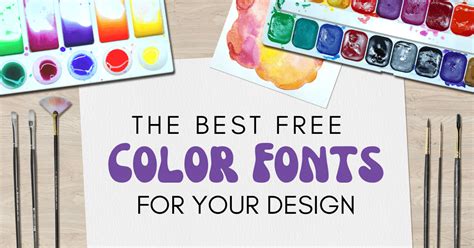
Experience Endless Creativity with Free Color Fonts Apk - Add a Splash of Vibrant Colors to Your Typography!
Are you tired of using the same old boring fonts in your designs? Do you want to add a splash of color to your typography and make your designs stand out? Look no further than the Free Color Fonts Apk, where you can experience endless creativity and enhance your designs with vibrant colors!
Did you know that color fonts are the latest trend in design? They allow designers to add a whole new dimension to their typography and bring their designs to life. With the Free Color Fonts Apk, you can access a wide range of free color fonts and add colorful text to your projects, whether it's for graphic design, social media, or personal projects.
Do you want to create eye-catching designs that capture your audience's attention? The Free Color Fonts Apk offers a simple and user-friendly platform that allows you to browse, select, and use color fonts with ease. With just a few clicks, you can choose from a variety of fonts that match your brand or personal style and make your designs pop.
Did you know that using vibrant colors in your typography can increase engagement and grab your audience's attention? Adding colorful text to your designs can make them more appealing and memorable. With the Free Color Fonts Apk, you can transform your ordinary designs into extraordinary ones and leave a lasting impression on your viewers.
Typography is an essential element of any design project. It has the power to enhance the message you are trying to convey and add a touch of creativity to your work. With the emergence of color fonts, designers can now expand their creativity beyond the limits of traditional typography. In this comparison blog article, we will explore the advantages of using Free Color Fonts Apk, a tool that enables users to experience endless creativity by adding a splash of vibrant colors to their typography.
What are Color Fonts?
Color fonts, also known as chromatic or multi-colored fonts, are a relatively new technology that allows designers to incorporate colorful elements into their typography. These fonts contain multiple layers of colors, making it possible to create vibrant and highly detailed typography that stands out among traditional black and white fonts.
Traditional fonts vs Color Fonts
| Traditional Fonts | Color Fonts | |
|---|---|---|
| Colors | One-color (usually black) | Multiple colors |
| Detail | Typically less detailed | Highly detailed |
| Creativity | Limited by one color | Endless possibilities with multiple colors |
The Advantages of Using Free Color Fonts Apk
1. Endless Creativity
With Free Color Fonts Apk, users have access to a vast library of color fonts, offering endless creativity possibilities. From fun and playful to elegant and sophisticated fonts, there is something for every type of project. The ability to customize each layer of color in a font allows users to achieve a level of detail and depth not found in traditional fonts.
2. User-Friendly Interface
Free Color Fonts Apk has a user-friendly interface, making it easy for designers of all levels to use. The straightforward design of the tool allows users to select and preview fonts quickly. Customizing the fonts is also a breeze thanks to the tool's intuitive editing features.
3. Cost-Efficient
Most Color Font options require users to purchase each font separately, which can become costly quickly. Free Color Fonts Apk eliminates this problem by offering its users access to a wide variety of color fonts without the need to buy them individually. This makes Free Color Fonts Apk a cost-efficient option for designers looking to explore color fonts.
The Disadvantages of Using Free Color Fonts Apk
1. Limited Customization Options
While Free Color Fonts Apk offers customization options, they are somewhat limited compared to other tools. Some designers may find that the tool does not allow them to achieve the level of customization they desire, leading them to use other design software instead.
2. Compatibility Issues
As color fonts are a relatively new technology, some browsers and applications may not be compatible with them, limiting their use. Before using color fonts, designers should check its compatibility with the application or software they intend to use it with.
Overall, Free Color Fonts Apk is an excellent tool for designers looking to branch out and experiment with color fonts. Its vast library of fonts and user-friendly interface make it accessible for designers of all levels. While it may not offer the same level of customization as other design tools, it is still a cost-efficient option that provides endless creativity possibilities. As color fonts continue to grow in popularity, Free Color Fonts Apk is an excellent tool to have in your design arsenal.
- Color fonts are still a relatively new technology, so not all devices may support them. It's always best to check compatibility before using them in a project.
- Some color fonts may allow for customization of the colors, while others are set in stone. It's important to read the font's description before using it in a project.